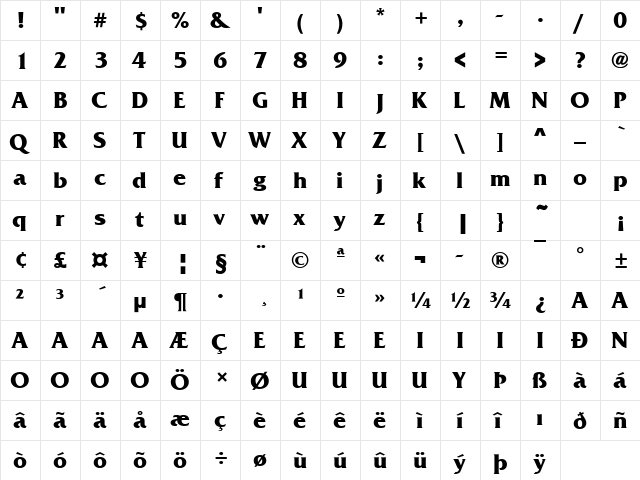
Friz Quadrata ITC T Bold
Design Context for Friz Quadrata ITC T Typeface
Friz Quadrata ITC T takes a measured approach to typography — its balanced proportions and neutral character make it a reliable workhorse for both digital and print work. The heavy weight commands attention and anchors typographic hierarchies.